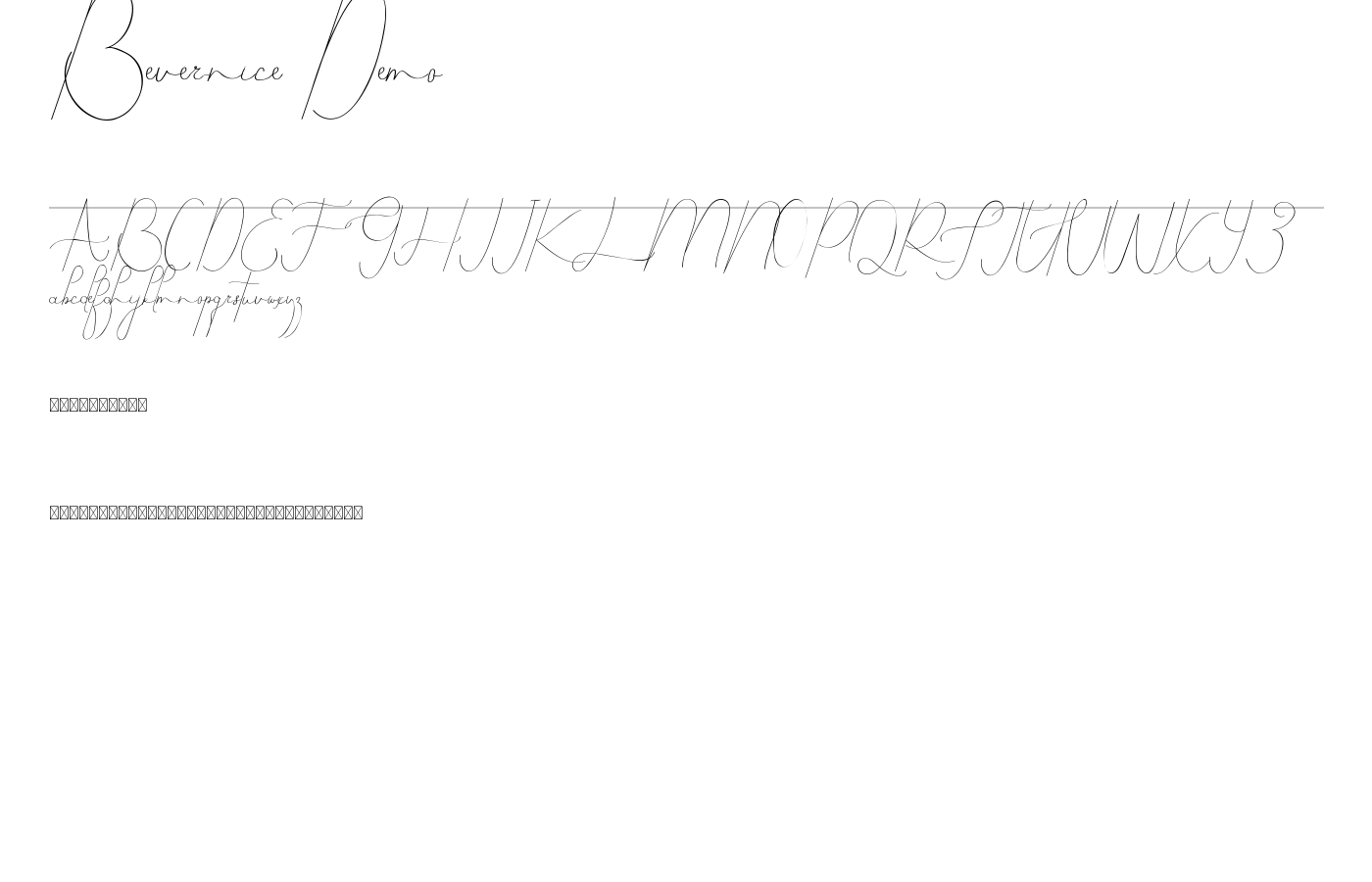
Bevernice Demo is a delicate, ultra-light script font that feels elegant and airy with its fine, flowing lines and high contrast between thin strokes. Its handwritten style with graceful loops and elongated letterforms makes it perfect for sophisticated branding, invitations, and fashion-focused designs where a touch of refined, artistic flair is desired. This font works best in large display sizes or headlines where its intricate details can shine without losing legibility.
Bevernice Demo Font
About Bevernice Demo Font
| Font family | Bevernice Demo Font |
| Designer | Saila Nurisslma & Suci Anita |